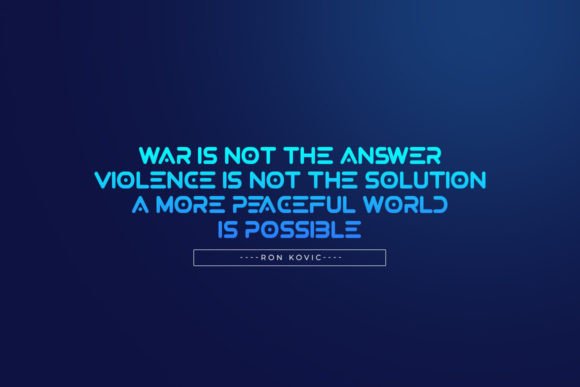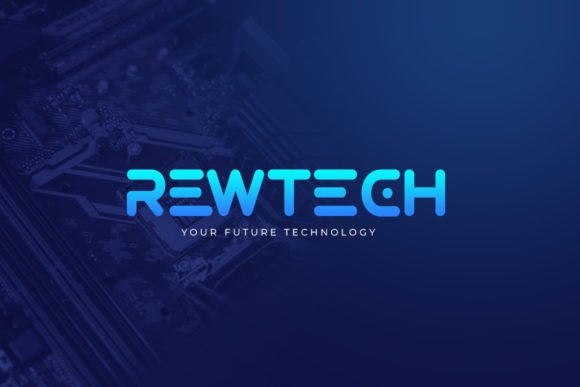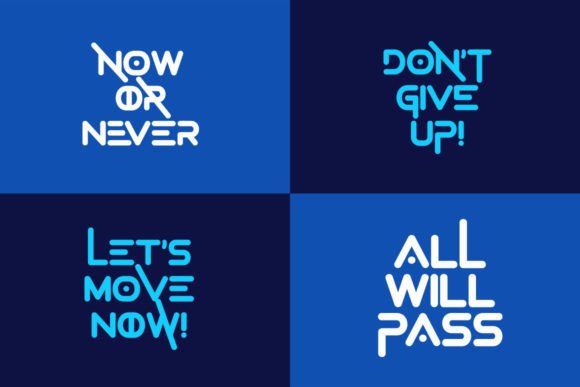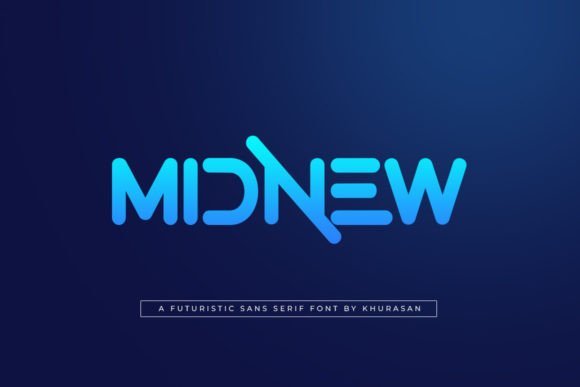
Introduction to Midnew Font
Midnew is a clean, unique, and modern sans-serif font.
The smooth and light execution makes this font look sleek and elegant, feminine which is perfect for girly branding designs It can easily be matched to an incredibly large set of projects, so add it to your creative ideas and notice how it makes them stand out.